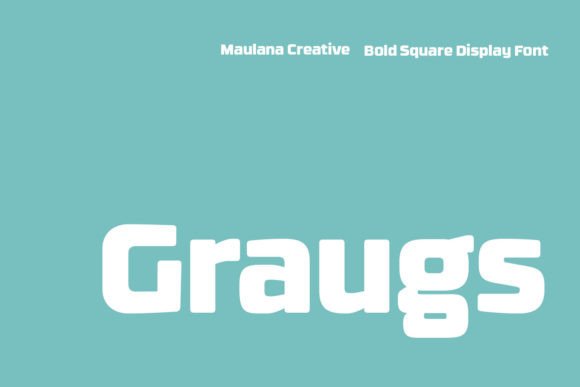
Unleash the Timeless Charm of Graugs: Your Gateway to Distinctive and Exquisite Calendar Designs
In a world bombarded with visual clutter, your calendar designs have the power to cut through the noise and leave a lasting impression. Introducing Graugs, the display font that's poised to transform your calendar designs into captivating works of art.
With its clean and modern aesthetic, Graugs embodies the essence of minimalism, offering a visual feast for the eyes. Its crisp and clear lines exude a sense of professionalism, while its versatility opens up a world of creative possibilities. Whether you're crafting sleek corporate calendars or whimsical personal planners, Graugs seamlessly adapts to your vision, effortlessly elevating your designs.
Step into the realm of Graugs, where creativity knows no bounds. Its meticulously crafted characters dance across the page, inviting you to explore a myriad of design possibilities. Create monthly themes that captivate, infuse your calendars with a touch of elegance, or let your imagination run wild as you weave intricate patterns and motifs. The possibilities are endless, limited only by the boundaries of your own imagination.
With Graugs, you'll discover a font that effortlessly complements your calendar's purpose. Its timeless design ensures that your creations remain relevant year after year, transcending the fleeting trends of the day. Whether you're aiming for a classic and sophisticated look or a more playful and contemporary vibe, Graugs serves as the perfect canvas for your artistic expression.
Elevate your calendar designs to new heights with Graugs, the font that captivates and inspires. Its versatility and timeless appeal make it an indispensable tool for any designer seeking to create truly exceptional calendars. Embrace the power of Graugs and let your creativity shine through.